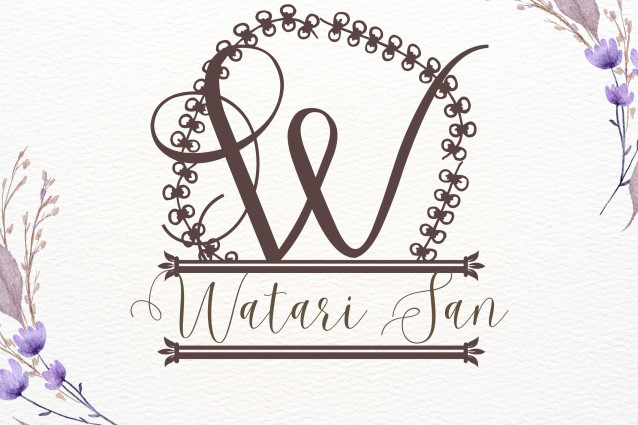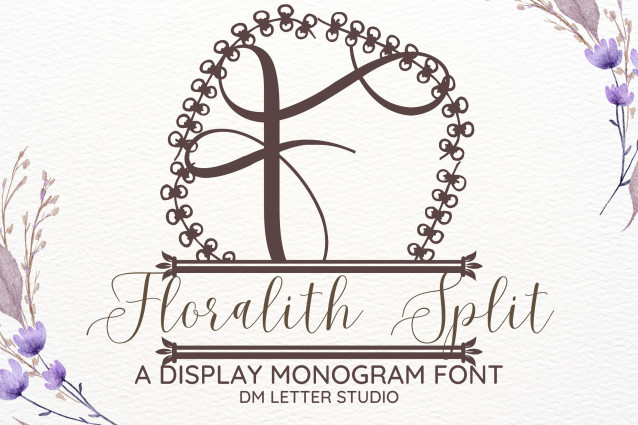
Floralith Split Monogram Font
Floralith Split Monogram Font is a beautifully crafted serif monogram font with a clean horizontal split and graceful floral embellishments. Each uppercase letter includes a centered gap for names or custom text, framed by soft botanical flourishes. Ideal for wedding decor, packaging, personalized gifts, and Cricut crafts, this font pairs classical letterforms with natural elegance—perfect for designs that deserve a refined and romantic touch.